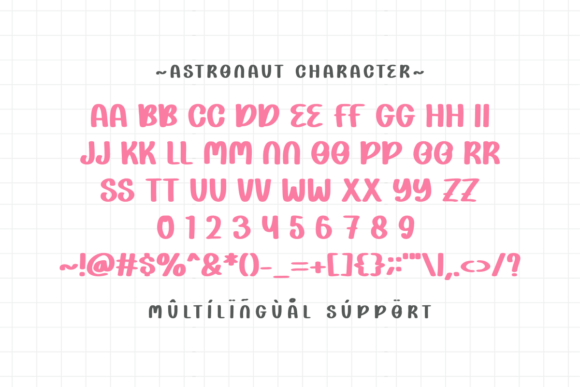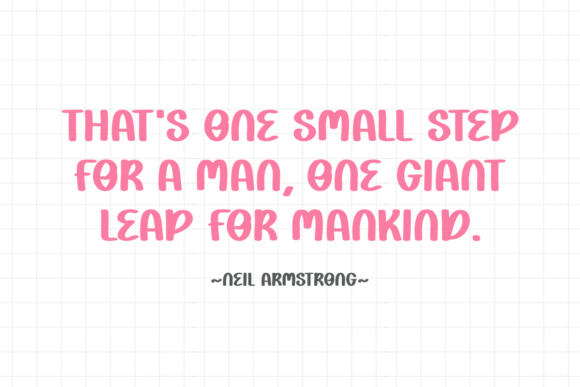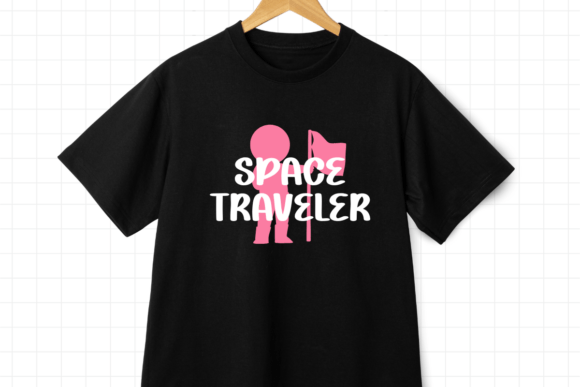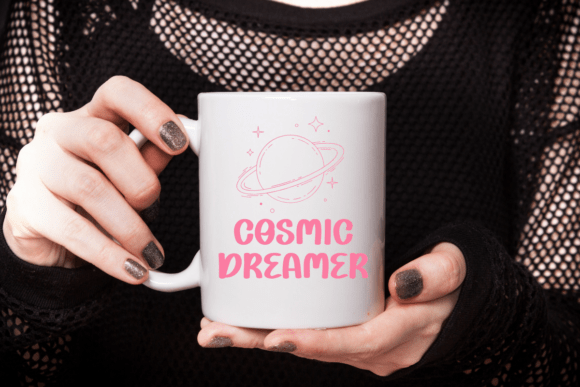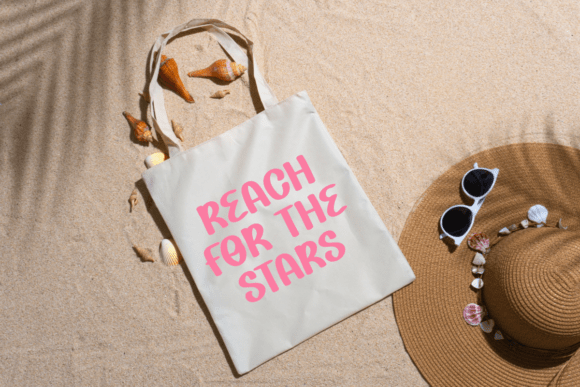
The Perfect Font for Your Holiday Designs
As the holiday season approaches, I’m sure many of you are brainstorming ideas for festive designs that will bring joy to your loved ones. It’s that time of the year when creativity knows no bounds, and the possibilities are endless. I still remember last year’s holiday card-making session, where I struggled to find the perfect font to match the playful vibe of our family’s holiday gathering. Little did I know, my search would soon lead me to the perfect solution – the Astronaut Font.
This delightful sans serif font is designed to add a touch of holiday cheer to your designs. With its playful curves and bold lines, Astronaut Font is perfect for creating cards, invitations, and other holiday-themed graphics that will surely leave a lasting impression. As a designer, you’ll appreciate the versatility and ease of use that this font offers, making it an invaluable addition to your design toolkit.
Astronaut Font Key Features
- Font Family: Astronaut Font is a sans-serif font family designed specifically for space-related themes, with a unique blend of modern and futuristic elements.
- Font Styles: The font family includes 4 font styles: Astronaut, Astronaut Bold, Astronaut Italic, and Astronaut Bold Italic, providing flexibility for various design applications.
- Character Set: The font family supports a wide range of languages, including Latin, Cyrillic, and Greek, with over 500 glyphs and 2000 characters, making it suitable for international designs.
Astronaut Font Review
Astronaut Font is a space-themed font that’s perfect for creating a sense of adventure and exploration. Here are some things that work well:
- ✨ Unique design: The font features a futuristic and cosmic look, making it ideal for space-related projects or designs that require a touch of otherworldliness.
- ✨ High contrast: The font’s bold lines and shapes create a high contrast between the letters, making it easy to read even at small sizes.
- ✨ Versatile: Astronaut Font comes in various weights and styles, allowing designers to choose the perfect version to suit their project’s needs.
- ⚠️ Limited expressiveness: The font’s design is quite literal, which can make it feel a bit restrictive for designers who want to convey more complex emotions or ideas.
- ⚠️ Not suitable for all projects: Astronaut Font is best suited for space-related or futuristic projects. It may not be the best choice for more traditional or formal designs.
Overall, I think Astronaut Font is a solid choice for designers who want to add a touch of sci-fi flair to their projects. While it may have some limitations, its unique design and high contrast make it a great option for space-themed projects.
The Astronaut Font is ideal for:
- Creating futuristic and space-themed designs.
- Adding a touch of elegance and sophistication to your designs.
- Highlighting important information and calls-to-action.
– Kerning: Custom kerning pairs for improved readability
– Glyphs: 250+ glyphs, including Latin, Cyrillic, and Greek characters
The Astronaut Font is optimized for use at medium to large font sizes, making it ideal for headings and titles.